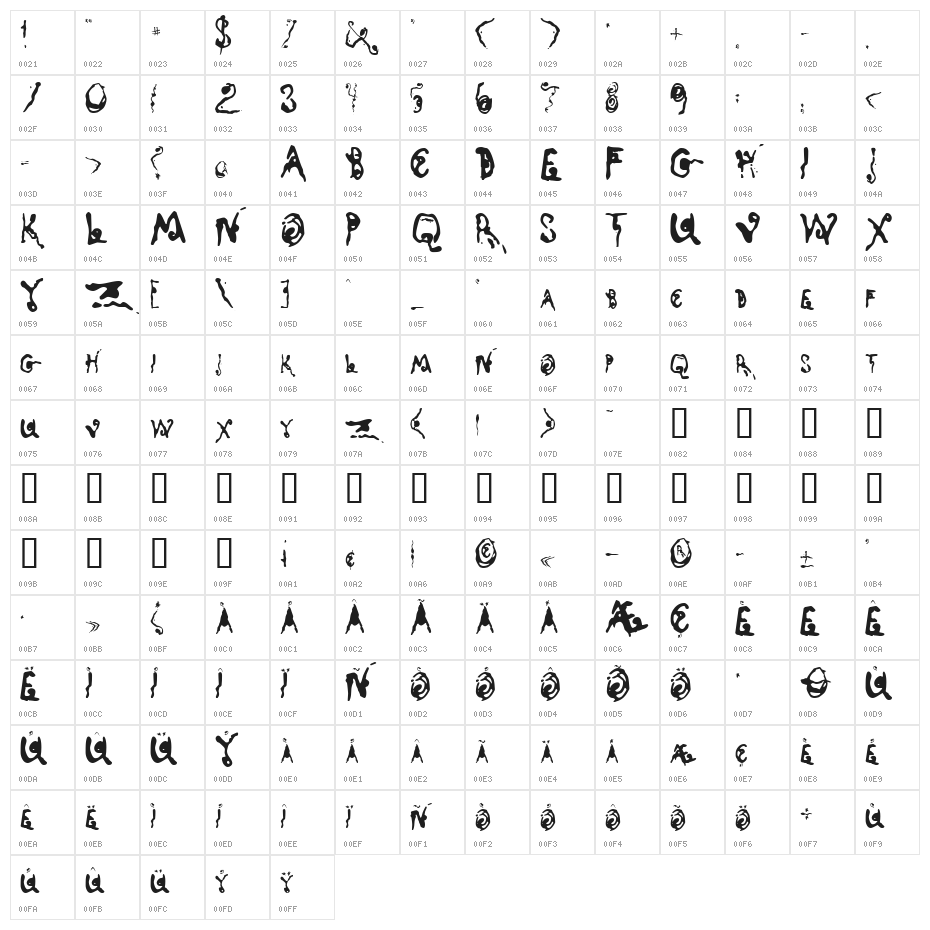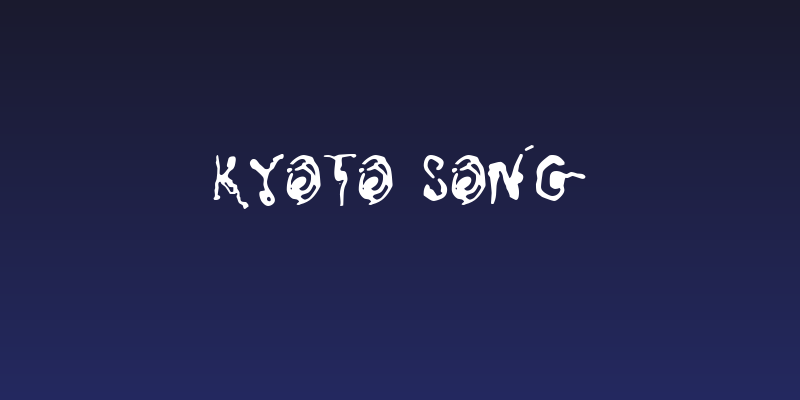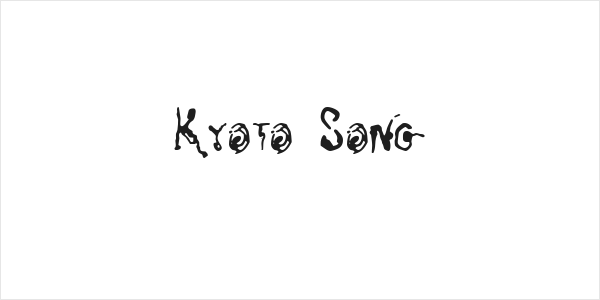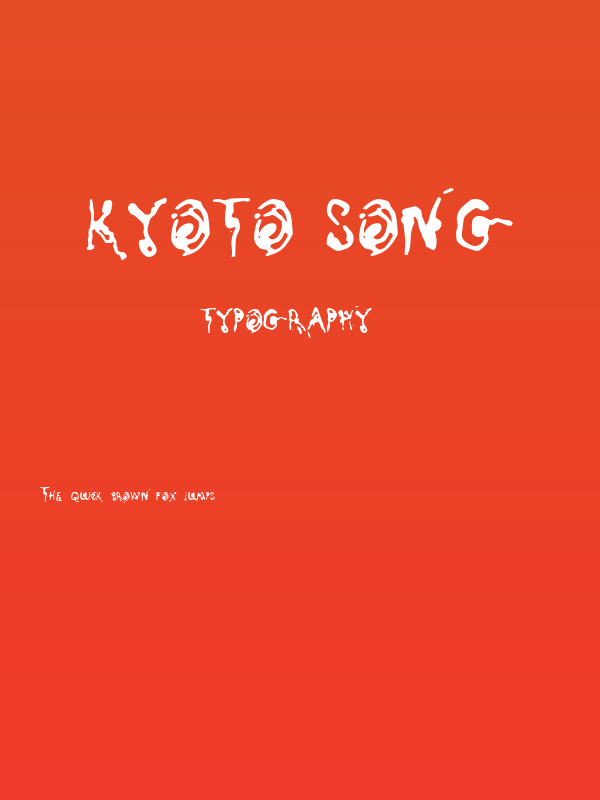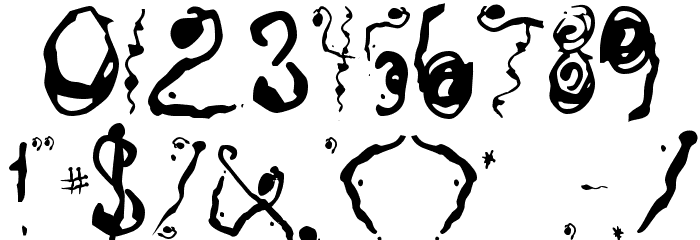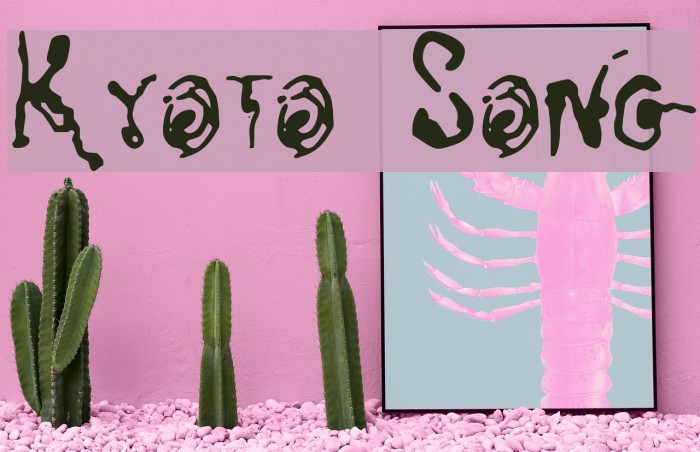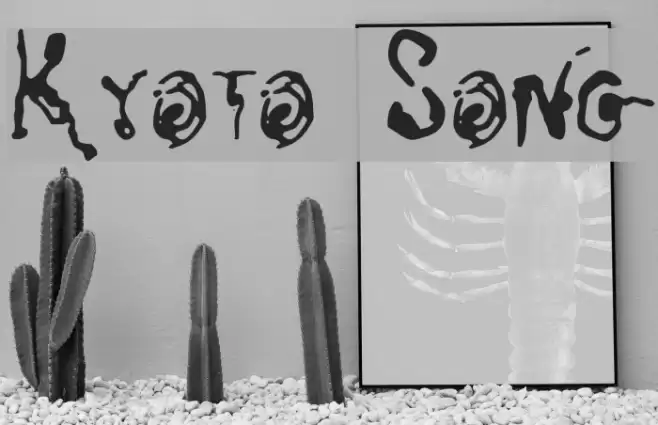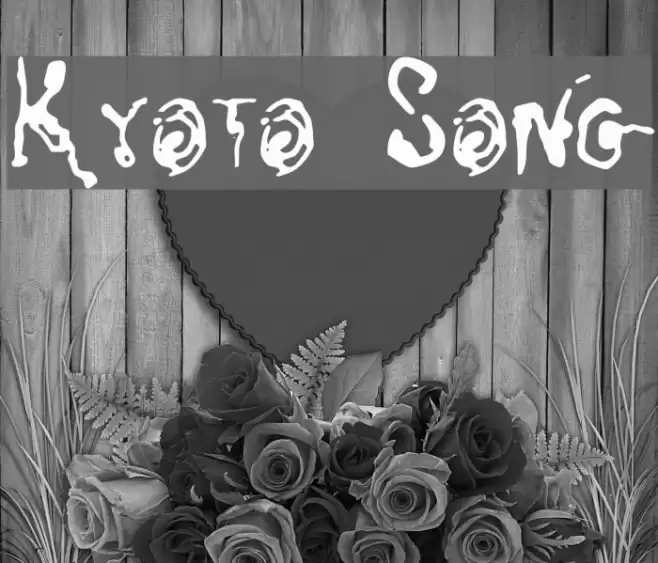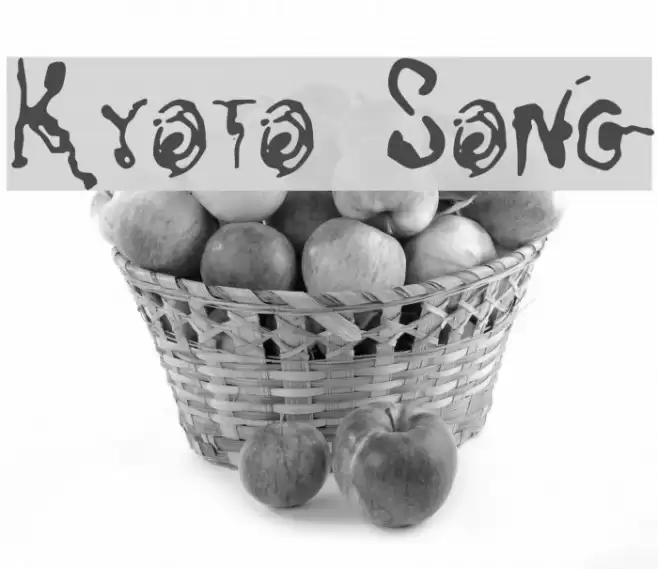
Kyoto Song Font
Kyoto Song Description
This font features a highly decorative and artistic style, characterized by its fluid and organic forms. The letters appear as if they are melting or dripping, creating a sense of movement and dynamism. Each character is unique, with varying thicknesses and unexpected curves that give the font a whimsical and surreal appearance. The overall design is bold and eye-catching, making it suitable for creative and unconventional projects. The font's playful nature is balanced by its strong presence, ensuring readability while maintaining its artistic flair.
| Use Case | Logos, Headlines, Artistic projects |
| Proposed Projects | Ideal for album covers, artistic posters, creative branding, and unique event invitations. |